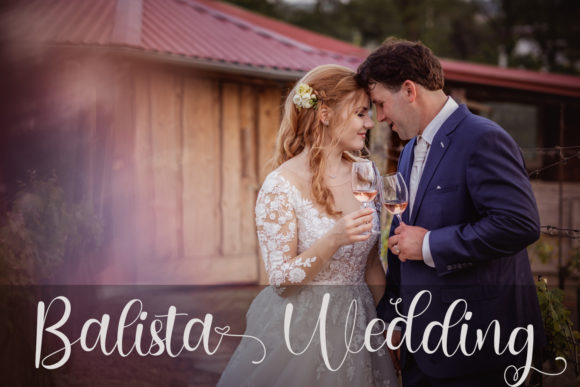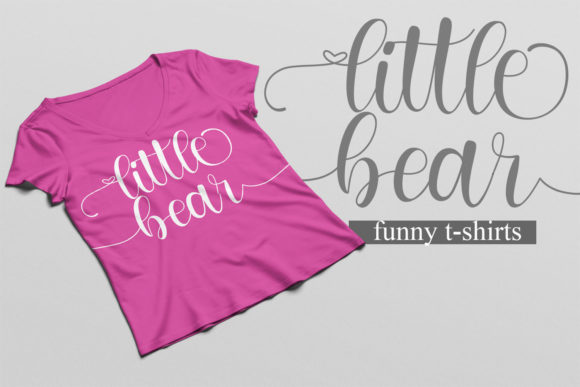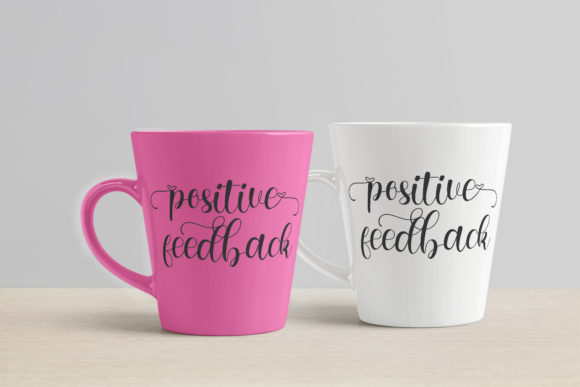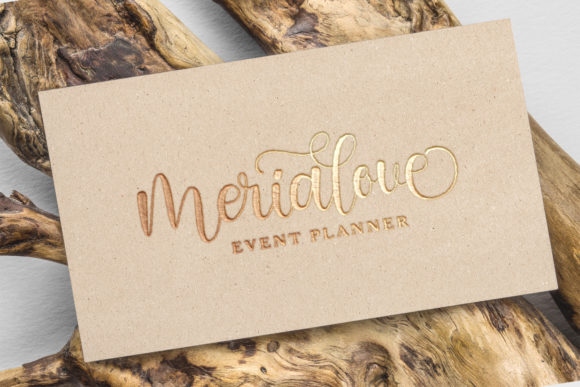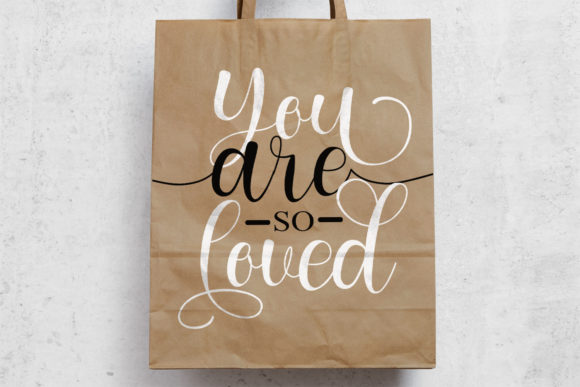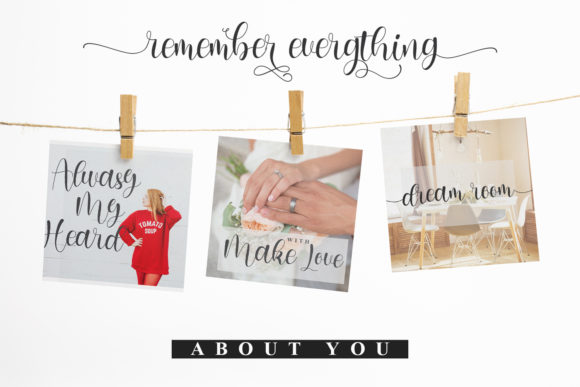
Introducing Barisha Script Font: Elevate Your Designs with Elegance and Flair
In the world of typography, a font can make or break the aesthetic of a design. For those seeking a touch of elegance and sophistication, the Barisha Script Font is an exceptional choice. This beautifully crafted handwritten font is not only visually stunning but also incredibly versatile, making it perfect for a wide range of creative projects.
A Font that Flows with Character
Barisha Script is a flowing and incredibly distinct handwritten font that captures the essence of personal and elegant writing. Its unique charm lies in its varying baseline, smooth lines, and gorgeous glyphs, which together create a sense of movement and fluidity. This font is not just a collection of letters; it’s an expression of artistry and creativity.
PUA Encoded for Ease of Use
One of the standout features of the Barisha Script Font is its PUA (Private Use Area) encoding. This means that users can access all the glyphs and swashes with ease, allowing for a high level of customization and creativity. Whether you’re looking to add a personal touch to your designs or simply want to experiment with different styles, the PUA encoding of Barisha Script makes it incredibly user-friendly.
The true beauty of Barisha Script lies in its versatility. This font can be used across a multitude of design projects, from romantic wedding invitations to stunning stationery art, and from eye-catching social media posts to captivating blog headers. Its elegant and flowing script makes it suitable for designs that require a touch of sophistication and class.
Crafting Beautiful Designs with Barisha Script
For designers and crafters, finding the right font can often be a challenge. With Barisha Script, you’re not just finding a font; you’re discovering a tool that can elevate your designs to new heights. Here are a few ideas on how you can use Barisha Script to create breathtaking designs:
- Wedding Invitations: Create romantic and personalized wedding invitations that set the tone for the big day. The elegant swashes and glyphs of Barisha Script add a touch of luxury and sophistication.
- Stationery Art: Design beautiful stationery that stands out. From letterheads to thank you cards, Barisha Script brings a level of elegance that’s hard to match.
- Social Media Posts: Make your social media posts stand out with the unique and flowing style of Barisha Script. It’s perfect for creating eye-catching headers, quotes, and promotional content.
- Blog Headers: Give your blog a professional and elegant look with Barisha Script. It’s ideal for headings, titles, and even short paragraphs.
Why Choose Barisha Script Font?
There are countless fonts available for designers and crafters, but Barisha Script stands out for several reasons:
- Unique Style: Its flowing and distinct handwritten style is unlike any other font, offering a fresh alternative to more traditional fonts.
- Ease of Use: The PUA encoding makes it easy to access and use the various glyphs and swashes, allowing for endless creativity.
- Versatility: It can be used for a wide range of projects, making it a valuable addition to any designer’s toolkit.
- Elegance: It adds a touch of elegance and sophistication to any design, making it perfect for projects that require a bit of flair.
The Barisha Script Font is more than just a font; it’s a design element that can transform your projects with its elegance and flair. Whether you’re a professional designer or a crafter looking to add a personal touch to your creations, Barisha Script is an excellent choice. Its unique style, ease of use, and versatility make it a valuable asset for anyone looking to elevate their designs. So, why settle for ordinary when you can create something extraordinary with Barisha Script Font?